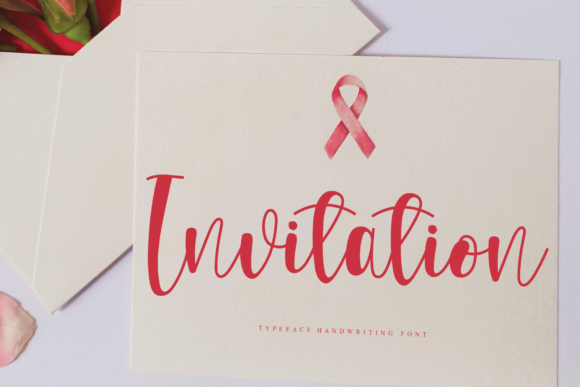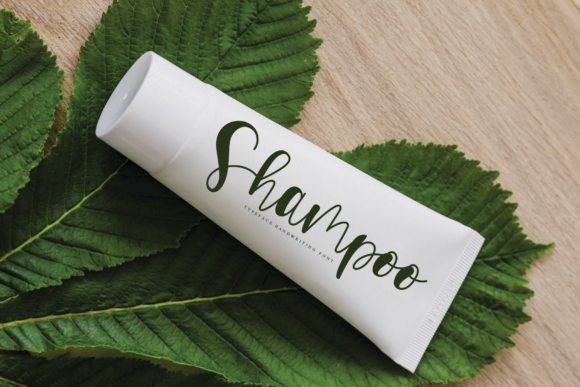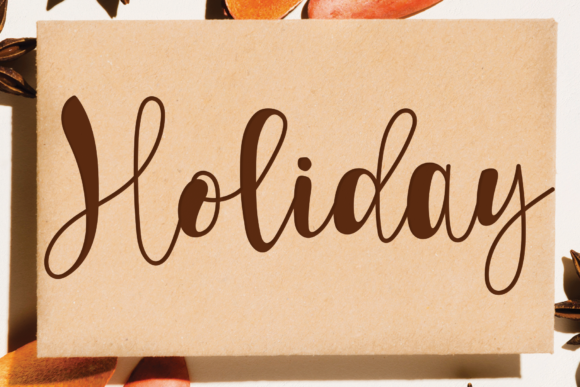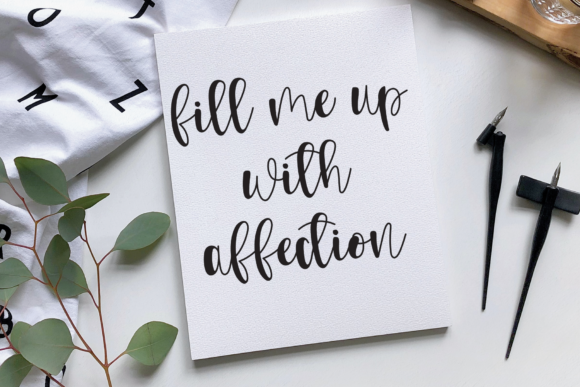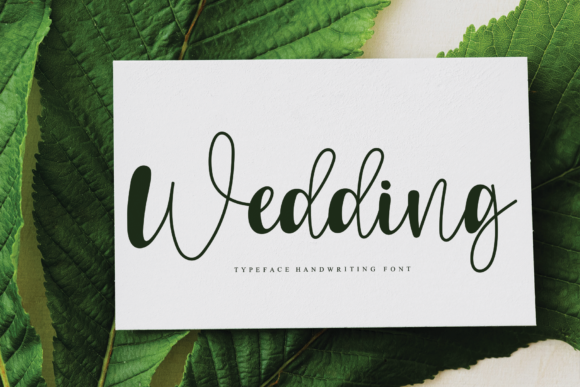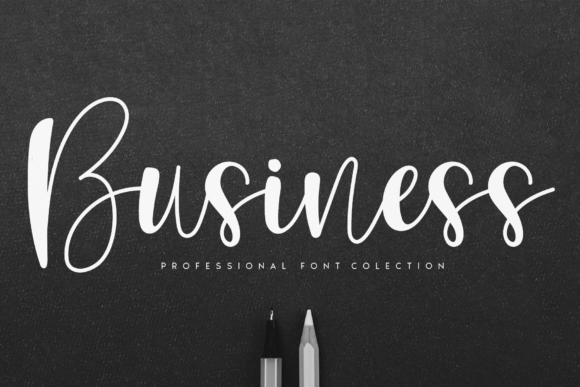
Introduction to Orlline Font
As a designer, there’s nothing quite like the thrill of discovering a new font that captures the essence of your creative vision. For many of us, it’s the moment when the perfect font falls into place, and our entire project comes together in a beautiful, cohesive way. I still remember the first time I laid eyes on the Orlline Font – its sweet, delicate, and flowing handwritten style immediately caught my attention, and I knew I had to learn more.
The Orlline Font is more than just a pretty face; it’s a high-quality design resource that can elevate any creative project from ordinary to extraordinary. With its versatility and unique charm, it’s perfect for crafting gorgeous wedding invitations, beautiful stationery art, eye-catching social media posts, and much more. Whether you’re a seasoned designer or just starting out, the Orlline Font is a valuable addition to your design arsenal.
Key Features of Orlline Font
- Transparent background for seamless integration into designs
- Perfect for use in digital applications, including web design, graphic design, and more
- Includes a range of font sizes and resolutions, from 72 dpi to 300 dpi
- Unique, modern design makes it an excellent choice for creative projects requiring a clean and minimalist aesthetic
Honest Review: Orlline Font
I recently stumbled upon the Orlline Font, and I’m excited to share my thoughts on this design resource. As a designer, I’m always on the lookout for high-quality fonts that can elevate my creative projects. The Orlline Font definitely delivers.
- ✨ Clean and modern design aesthetic
- ✨ High-quality vector files for seamless scaling
- ✨ Supports a wide range of languages
While the Orlline Font is a great addition to any design library, I did encounter a few limitations:
- ⚠️ Limited customization options
- ⚠️ No transparent background support (which may be a deal-breaker for some designers)
Overall, I’m impressed with the Orlline Font. Its modern design and high-quality files make it a great choice for creative projects. While it may not offer the most extensive customization options, it’s a solid addition to any designer’s library.
Tips for Getting the Most Out of Orlline Font
To get the most out of Orlline Font, use it in conjunction with a transparent background to create a seamless design. You can also experiment with different font sizes, colors, and alignments to create a unique look.
The Orlline Font is perfect for creative projects such as branding, marketing materials, and social media graphics. It’s also great for use in presentations, documents, and websites.
Alternatives to Orlline Font
Great Vibes Font is a beautiful, high-quality script font perfect for creative projects that require a touch of elegance. It features a transparent background, making it ideal for use on a variety of design resources, including posters, flyers, and social media graphics. When to use: wedding invitations, greeting cards, or any project that needs a romantic feel. Compared to Orlline Font, Great Vibes Font has a more flowing and cursive design, making it suitable for longer text passages.
Alex Brush Font is a sophisticated and elegant script font that is ideal for use in high-end design projects. It features a high-quality design and a transparent background, making it perfect for use on various design resources. When to use: luxury brand logos, high-end packaging, or any project that requires a touch of sophistication. Compared to Orlline Font, Alex Brush Font has a more refined and polished design, making it suitable for use in professional settings.
Carolyna Pro Font is a modern and stylish font that is perfect for use in creative projects that require a touch of glamour. It features a transparent background and a high-quality design, making it ideal for use on various design resources. When to use: fashion magazines, beauty product packaging, or any project that needs a touch of luxury. Compared to Orlline Font, Carolyna Pro Font has a more modern and edgy design, making it suitable for use in trendy and fashion-forward projects.